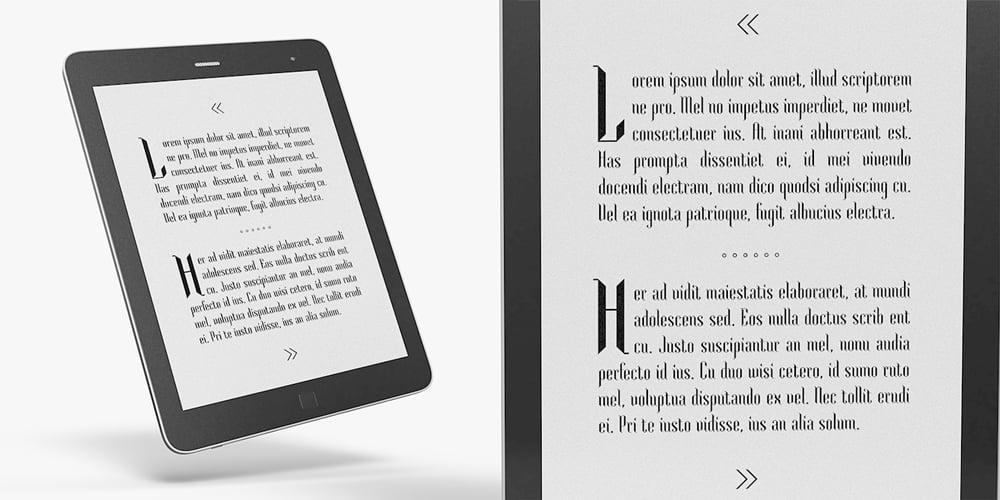
Crassified
Crassified font
Crassified Font Family was designed by Krasimir Dzhenev and published by Spareartist. Crassified contains 1 styles and family package options. Crassified is a modern display font inspired by blackletter typefaces. The typeface has a strong effect that adds a certain elegance and class to both digital and print designs. It’s ideal for crafting logos, posters, covers, and more.